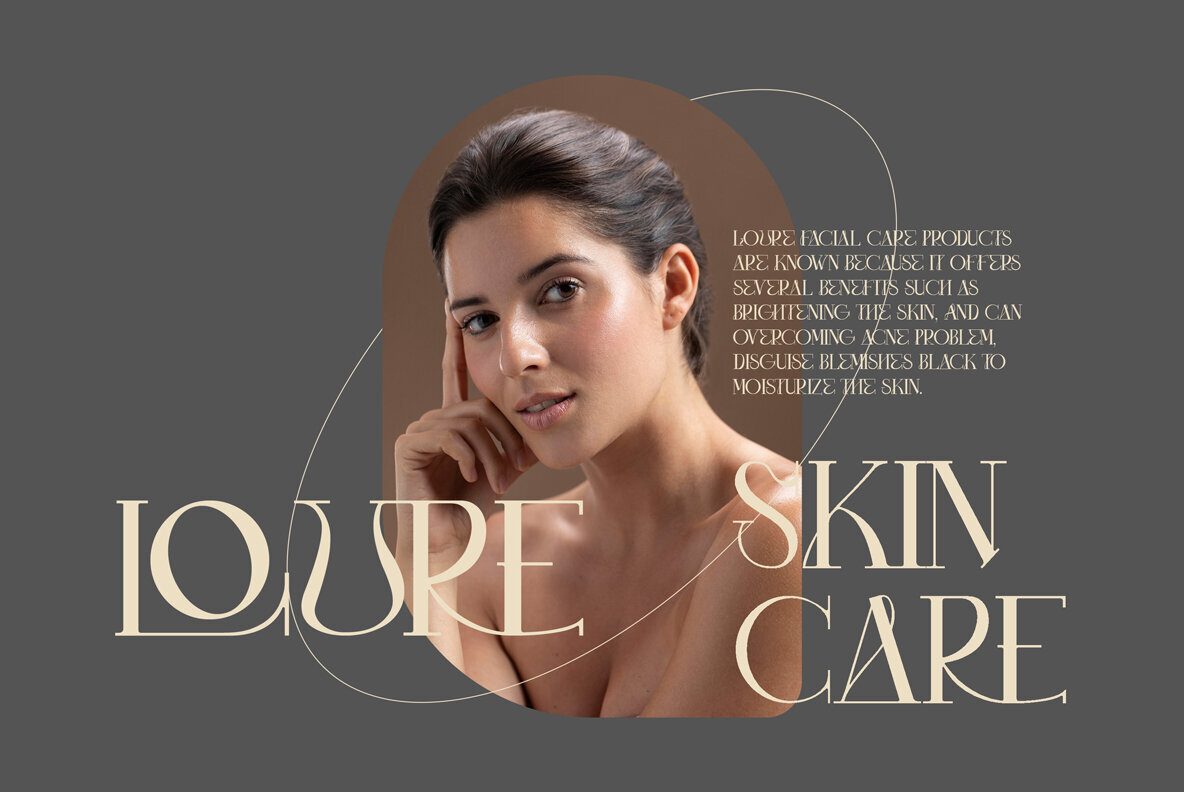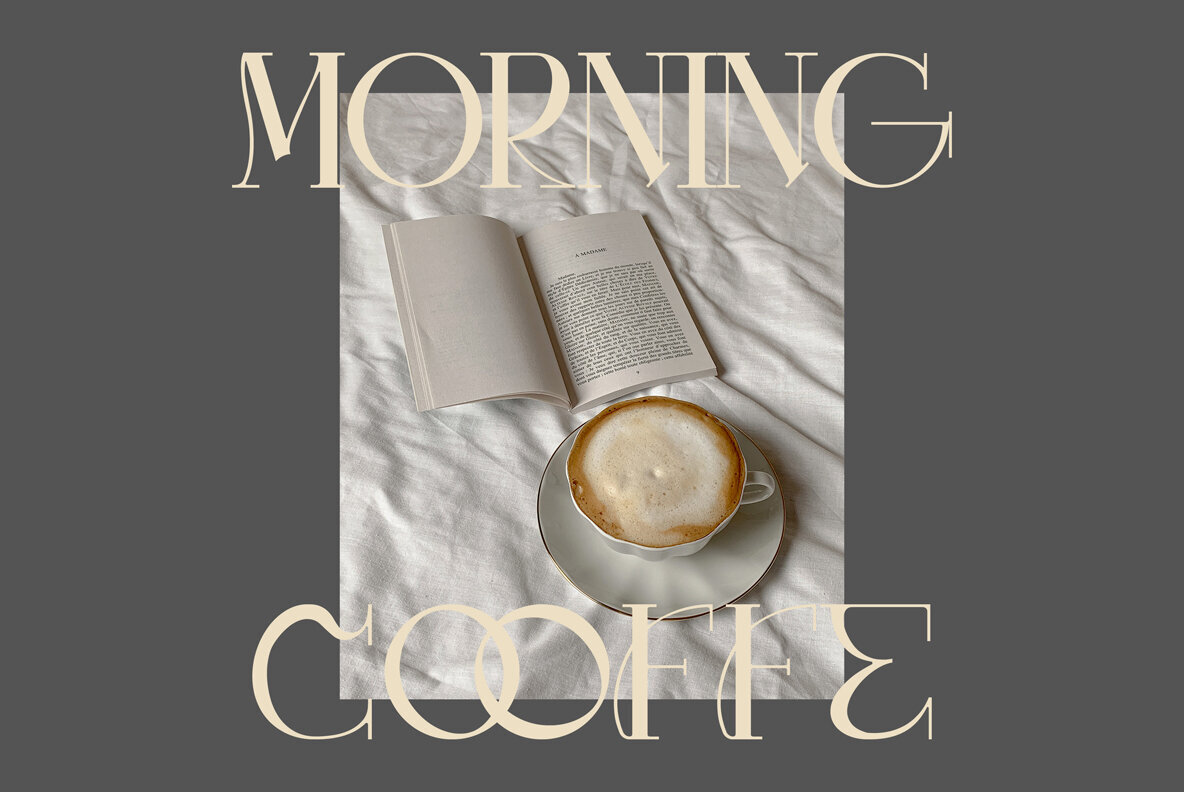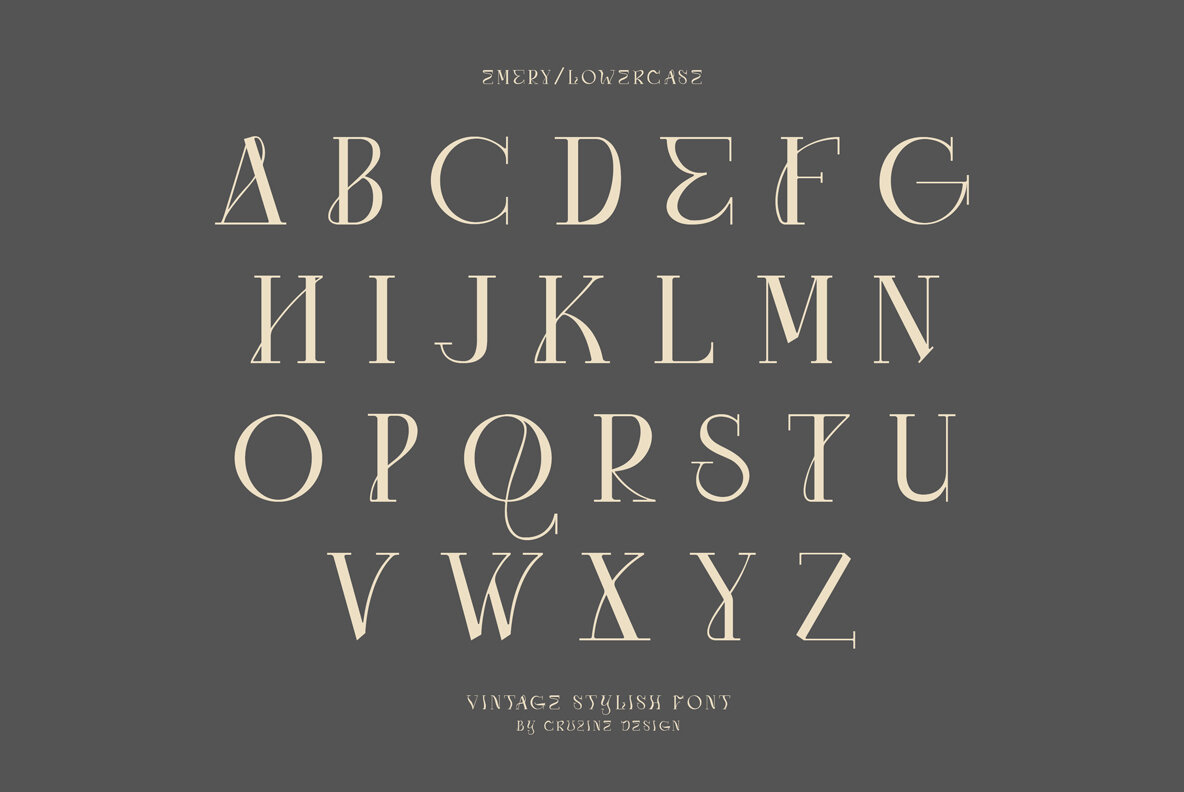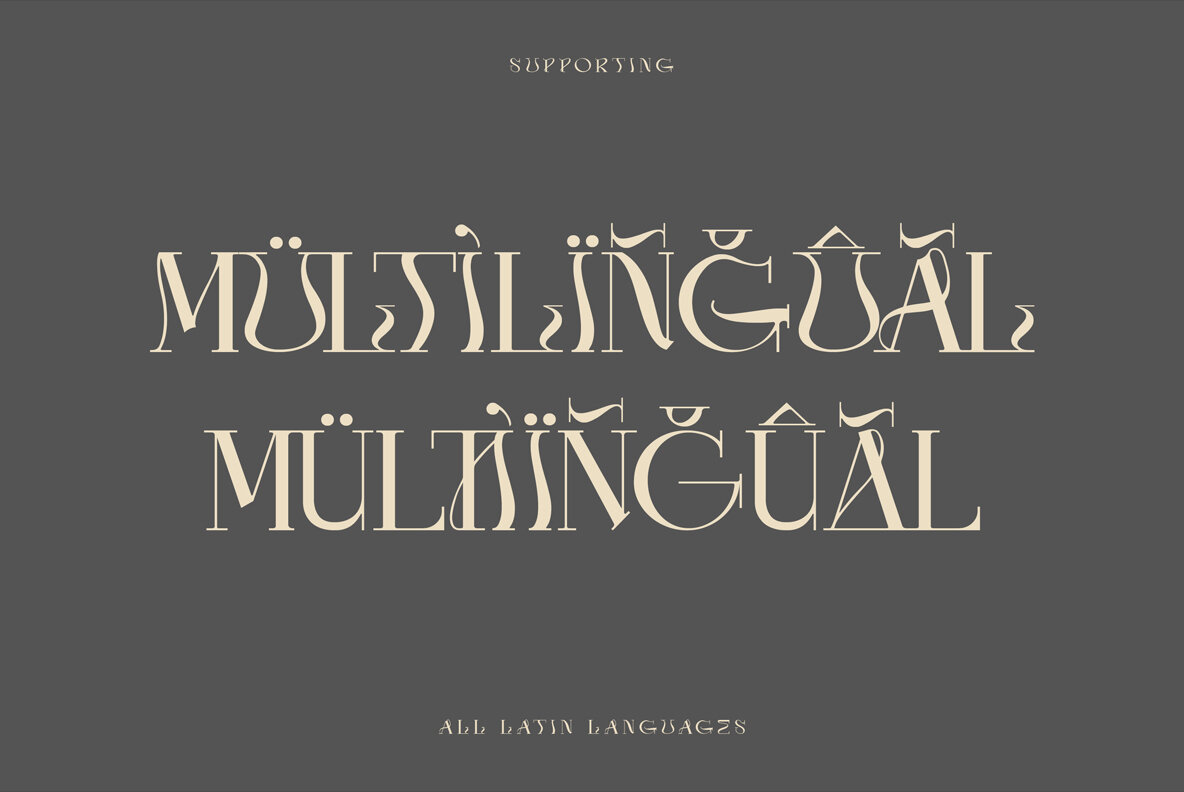
Emery Font
Emery Regular
Embrace Emery, a distinctive slab serif font that brings a touch of modern elegance and warmth to your fancy projects. Its artistic flair makes it a great choice for branding, adding a unique twist to any design. Enjoy the multilingual support and let Emery elevate your creative endeavors!